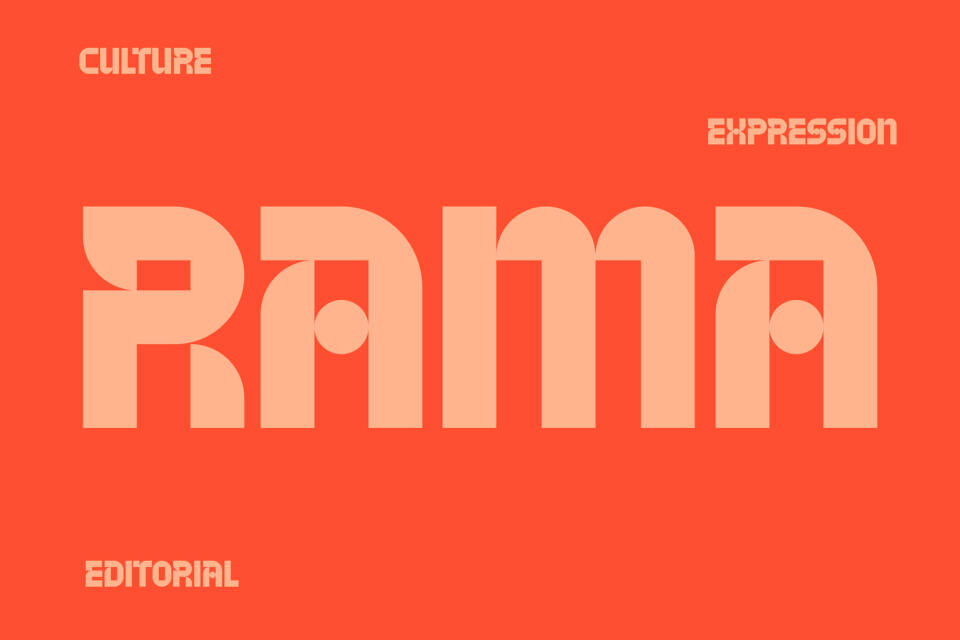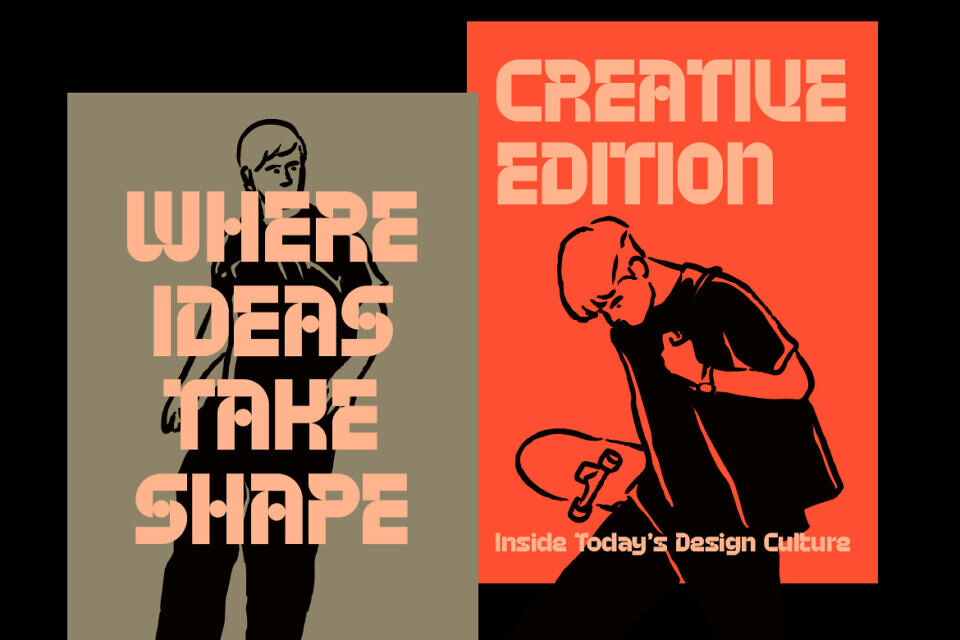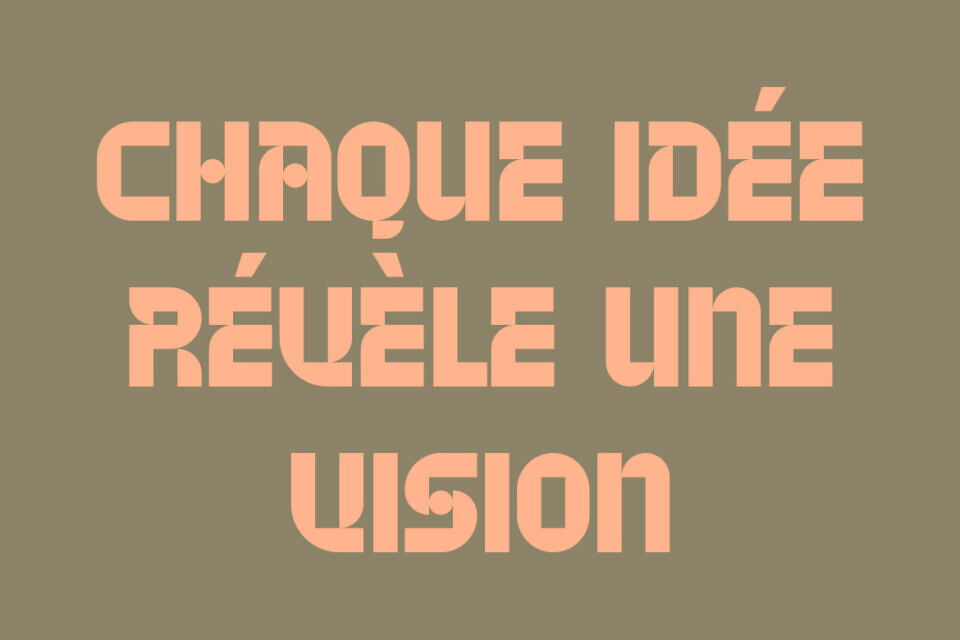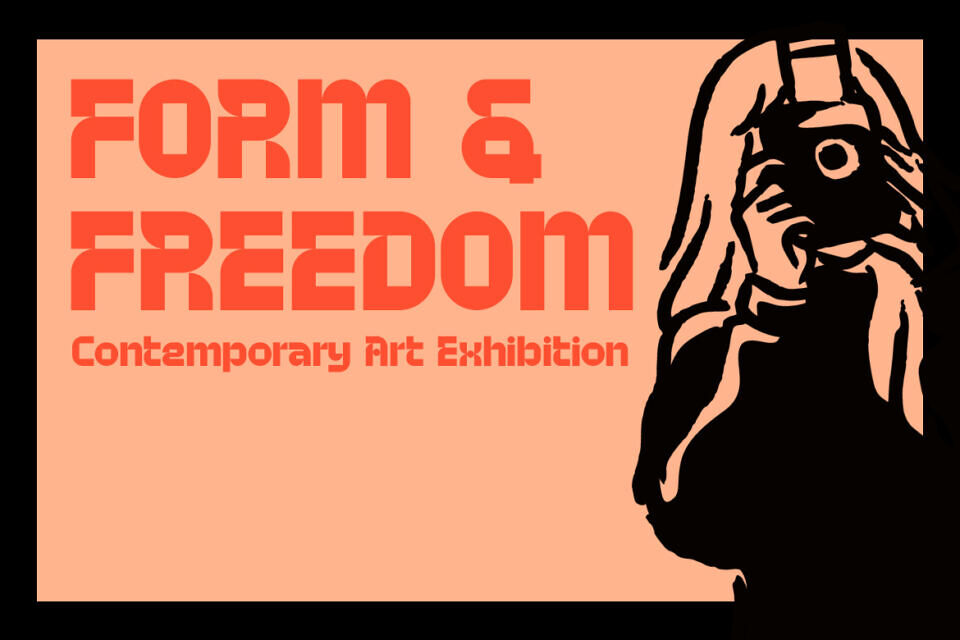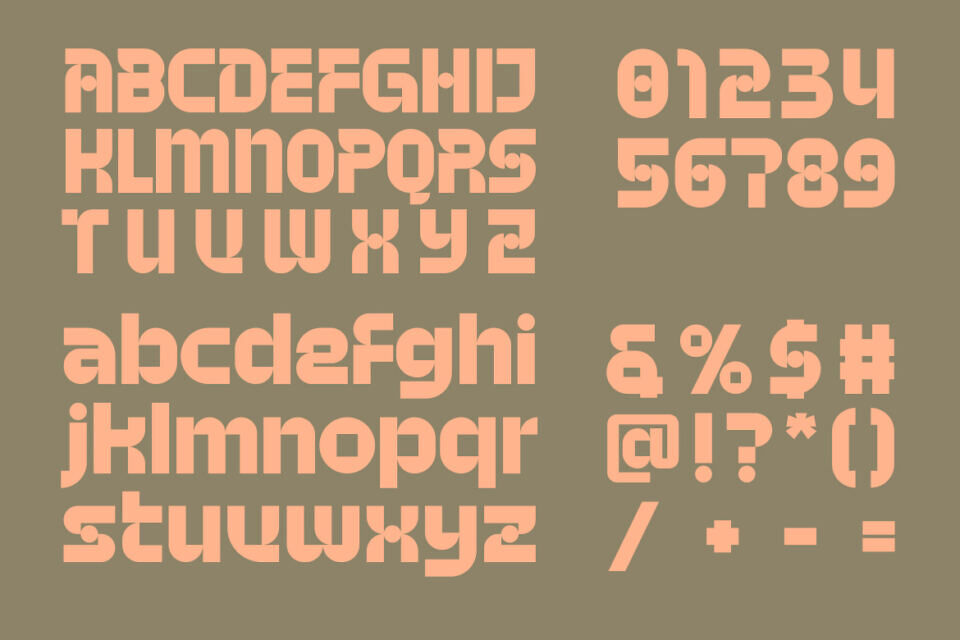
Rama transforms bold typography into a modern visual statement with its geometric forms, futuristic proportions, and confident personality. Unlike ordinary display fonts, Rama balances strong structure with clean simplicity, creating headlines that command attention.
Moreover, every character carries a sharp architectural rhythm, instantly while the balanced spacing keeps every composition stylish and easy to read. As a result, your content feels more impactful without becoming overwhelming.